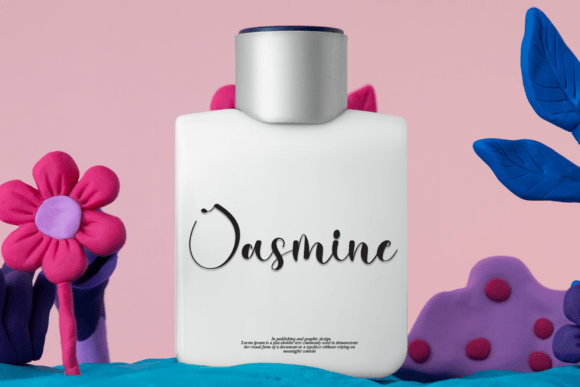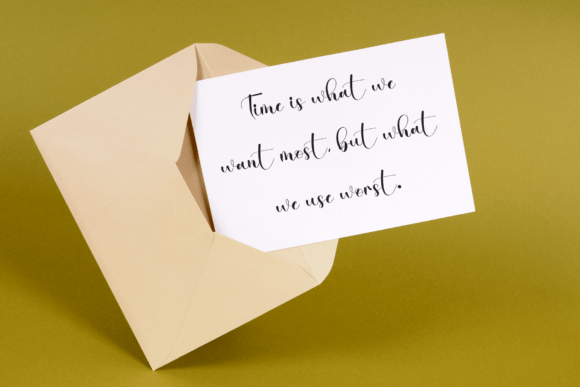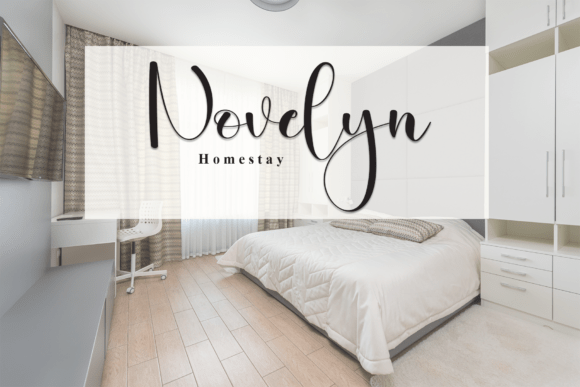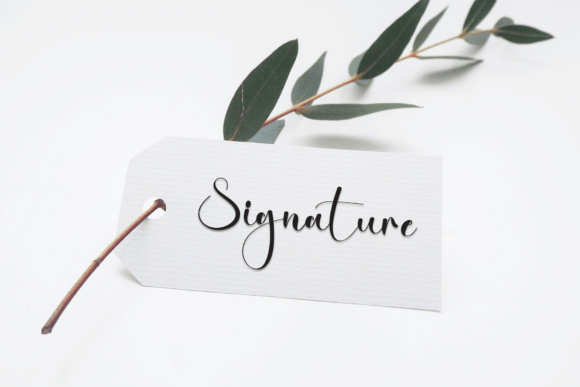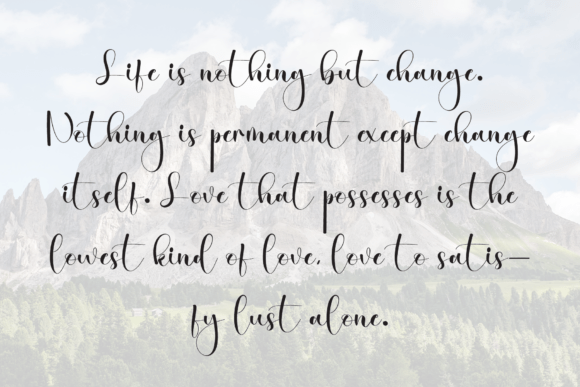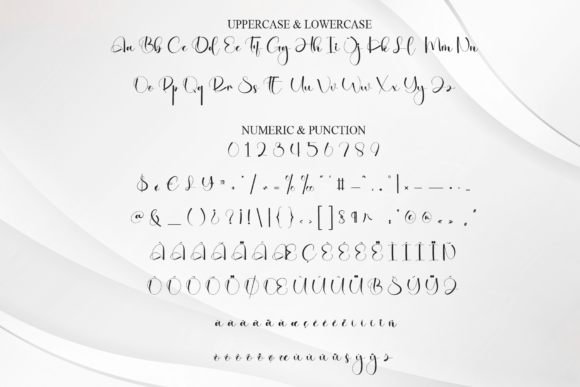
The Elegance of Eastern Font: A Designer’s Delight
I still remember the time I was working on a wedding invitation project, and I just couldn’t find the right font to capture the elegance and charm of the occasion. The client wanted something that exuded freshness and delicacy, but everything I tried seemed either too bland or too over-the-top. That’s when I stumbled upon Eastern Font, a stylish handwritten script font that instantly won my heart. In this article, I’ll share my love for Eastern Font, its features, and how to make the most of it in your designs.
An Honest Review of Eastern Font
What I Love About Eastern Font ✨
- ✅ Fresh and elegant feel that’s perfect for invitations, branding, and seasonal designs
- ✅ Delicate charm that adds a soft, personal touch to any project
- ✅ Flowing strokes and graceful curves that evoke a sense of renewal
- ✅ Highly versatile and can be used for a wide range of creative projects
- ⚠️ Some users may find the font a bit too delicate for certain design applications
- ⚠️ Limited availability of stylistic alternates, which may limit creative options
The Story Behind Eastern Font
Eastern Font was designed by a team of creatives who wanted to create a font that captured the essence of renewal and elegance. Inspired by traditional calligraphy and modern typography, Eastern Font is a unique blend of classic and contemporary styles. The design team poured their hearts into crafting a font that would add a touch of sophistication and charm to any design project.
Q: What is Eastern Font best used for?
A: Eastern Font is perfect for invitations, branding, and seasonal designs that require a fresh and elegant feel.
Q: Is Eastern Font available in different weights or styles?
A: Currently, Eastern Font is available in a single weight, but the design team may release additional weights or styles in the future.